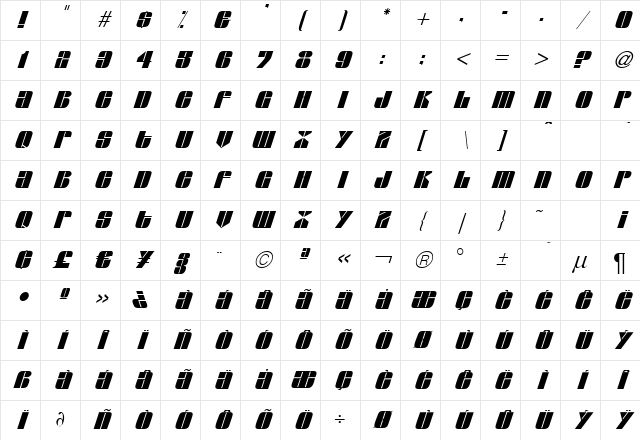
G761-Deco is a composed and adaptable typeface that performs quietly and consistently across a wide range of design contexts. The slanted form adds forward momentum and visual energy.